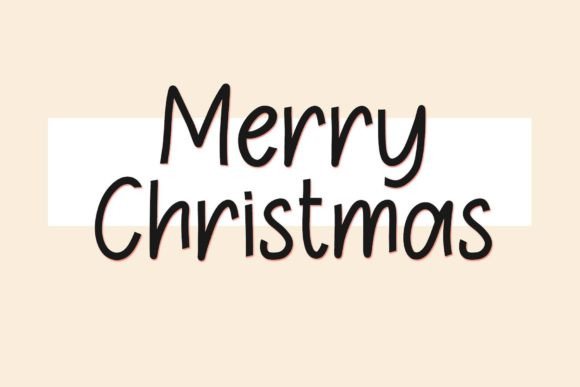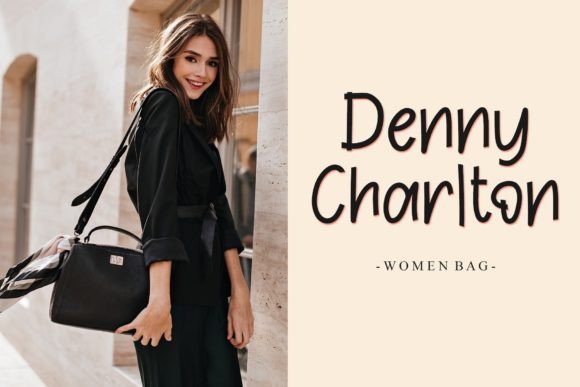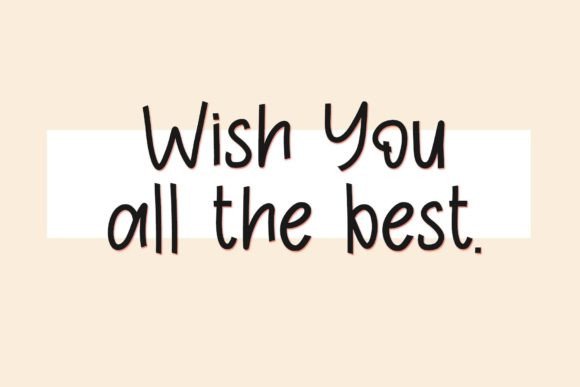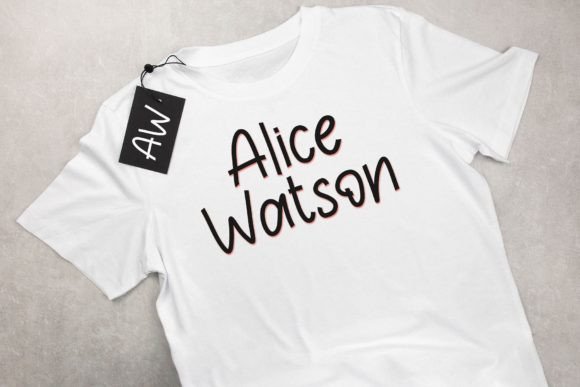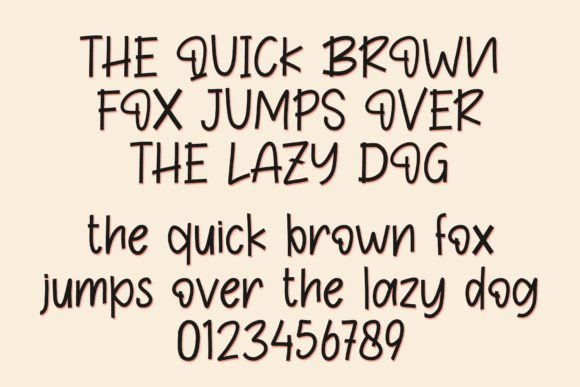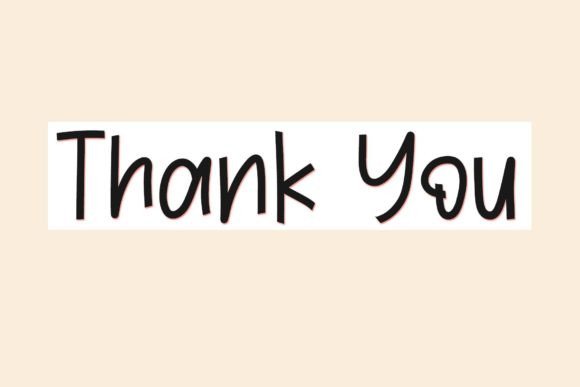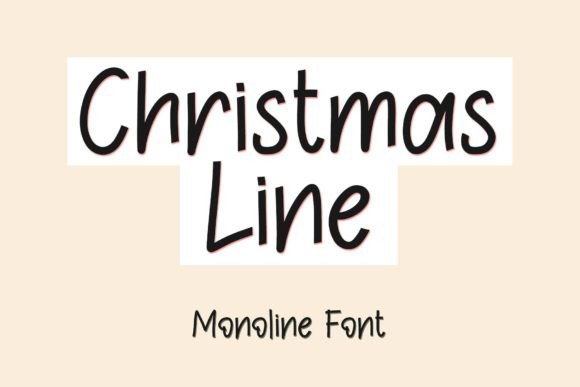
Introducing Christmas Line Font: The Perfect Addition to Your Holiday Designs
Are you looking for a font that will add a touch of festive fun to your holiday designs? Look no further than Christmas Line Font! This simple and thin-lettered handwritten font is the perfect way to add a friendly and approachable feel to your projects. In this article, we’ll take a closer look at Christmas Line Font and explore how you can use it to take your holiday designs to the next level.
What is Christmas Line Font?
Christmas Line Font is a beautiful, handwritten font that is perfect for adding a personal touch to your designs. With its simple and thin letters, it’s ideal for use on a variety of design ideas, from holiday cards and invitations to social media graphics and blog posts. The font’s adaptability makes it a versatile choice for designers and crafters who want to create unique and eye-catching designs.
Key Features of Christmas Line Font
- Simple and thin-lettered: Christmas Line Font features simple, thin letters that are easy to read and perfect for use on a variety of design ideas.
- Handwritten style: The font’s handwritten style gives it a friendly and approachable feel that’s perfect for holiday designs.
- Adaptable: Christmas Line Font is highly adaptable and can be used on a wide range of design ideas, from holiday cards and invitations to social media graphics and blog posts.
- Fun and friendly: The font’s playful style adds a fun and friendly touch to each of your projects, making it perfect for holiday designs.
How to Use Christmas Line Font in Your Designs
Christmas Line Font is easy to use and can be incorporated into a wide range of design ideas. Here are a few ways you can use the font in your holiday designs:
- Holiday cards and invitations: Use Christmas Line Font to create festive holiday cards and invitations that are sure to impress your friends and family.
- Social media graphics: Add a touch of holiday cheer to your social media graphics with Christmas Line Font. The font’s playful style is perfect for creating eye-catching graphics that will stand out on social media.
- Blog posts: Use Christmas Line Font to add a festive touch to your holiday blog posts. The font’s readability makes it perfect for use in body text, and its playful style adds a fun and friendly touch to your content.
- Crafting projects: Christmas Line Font is also perfect for use in crafting projects, such as scrapbooking and papercrafting. The font’s simple and thin letters make it easy to read and perfect for use on a variety of crafting projects.
Tips for Getting the Most Out of Christmas Line Font
Here are a few tips for getting the most out of Christmas Line Font:
- Experiment with different colors: Christmas Line Font looks great in a variety of colors, so don’t be afraid to experiment and find the perfect color for your design.
- Use it with other fonts: Christmas Line Font pairs well with other fonts, so try using it with a bold font to create a fun and eye-catching design.
- Keep it simple: Christmas Line Font is perfect for simple designs, so don’t feel like you need to add a lot of embellishments. Keep your design simple and let the font shine.
Christmas Line Font is a beautiful and versatile font that’s perfect for adding a touch of festive fun to your holiday designs. With its simple and thin letters, handwritten style, and adaptability, it’s the perfect choice for designers and crafters who want to create unique and eye-catching designs. Whether you’re creating holiday cards and invitations, social media graphics, or crafting projects, Christmas Line Font is sure to be a hit. So why wait? Download Christmas Line Font today and start creating your own festive holiday designs!